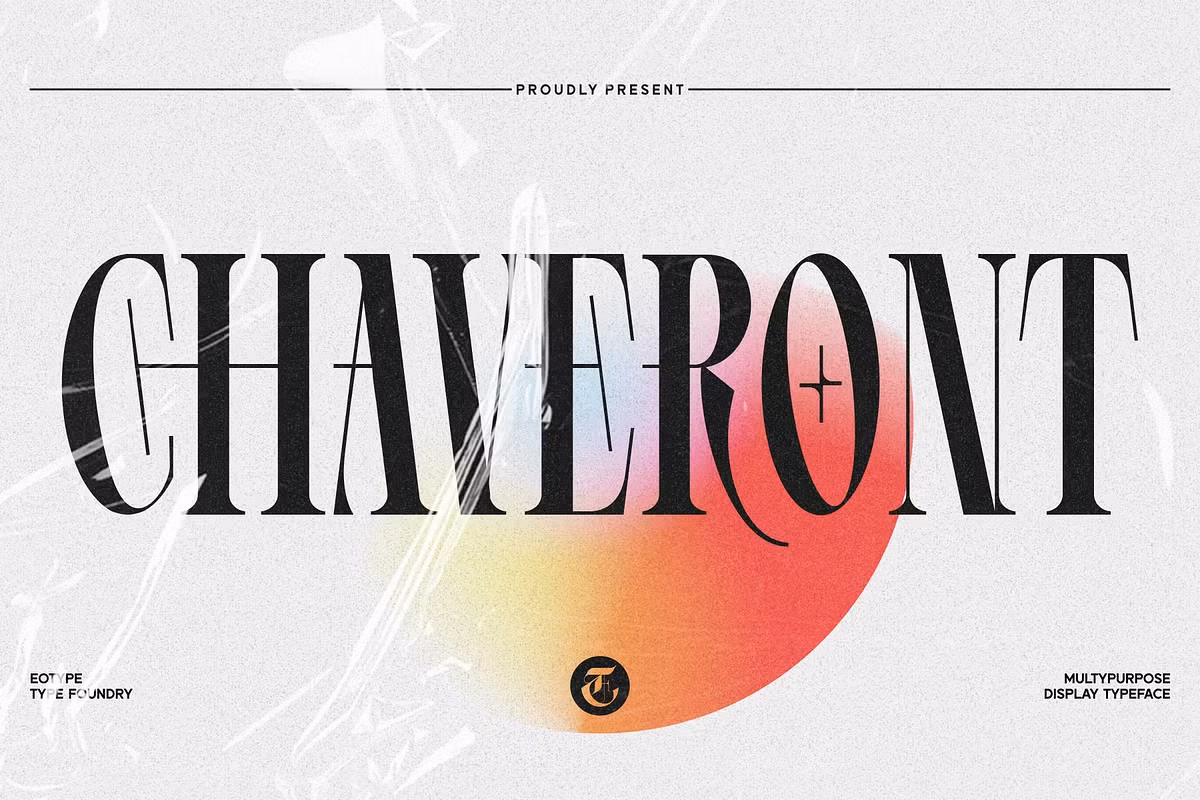
Chaveront Font Free Download is a sleek and modern typeface designed to add elegance and readability to any design. With its clean lines and balanced letterforms, Chaveront is perfect for logos, branding, websites, and other creative projects. Its contemporary style ensures your designs will have a professional and sophisticated look.